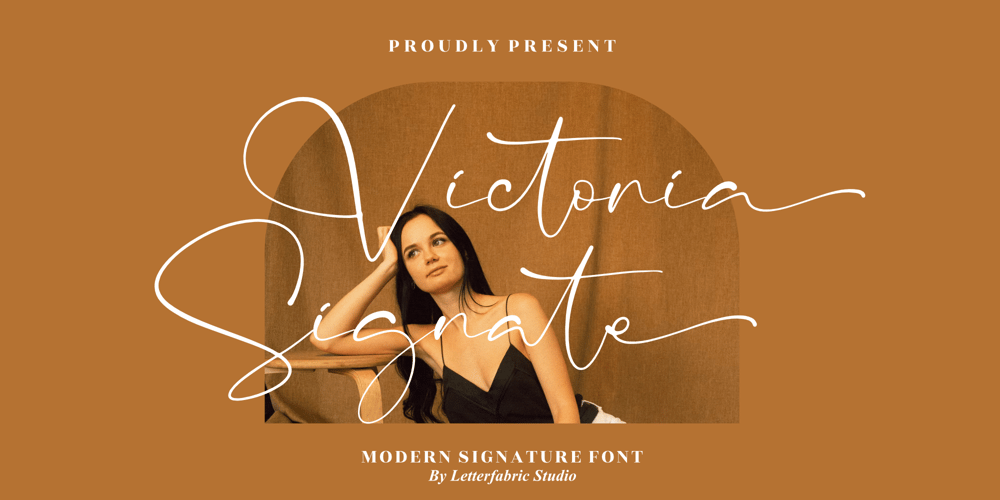
Victoria Signate
Victoria Signate font
Victoria Signate Font Family was designed by Heru Utama Putra and published by Letterena Studios. Victoria Signate contains 2 styles and family package options. Victoria Signate is a beautiful and light handwritten font with a unique feel and a stunning impact. It will add a luxury spark to any design project that you wish to create! This font is PUA encoded which means you can access all of the amazing glyphs and ligatures with ease!